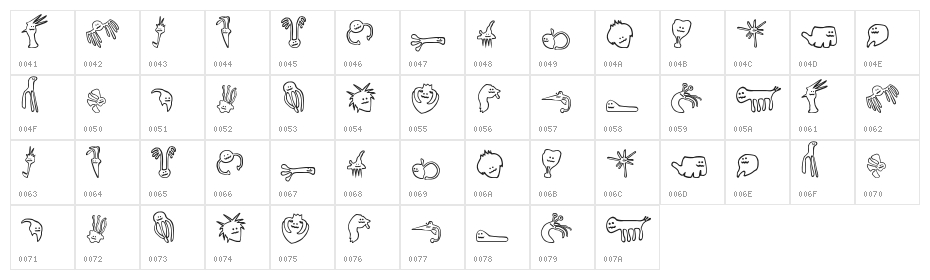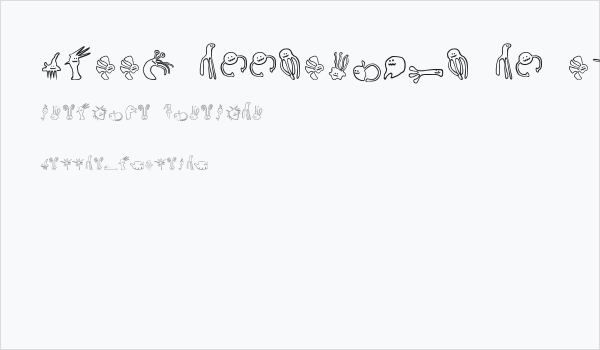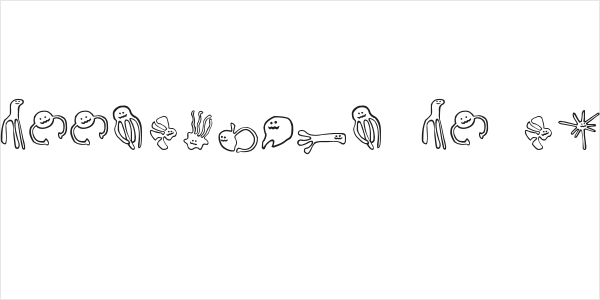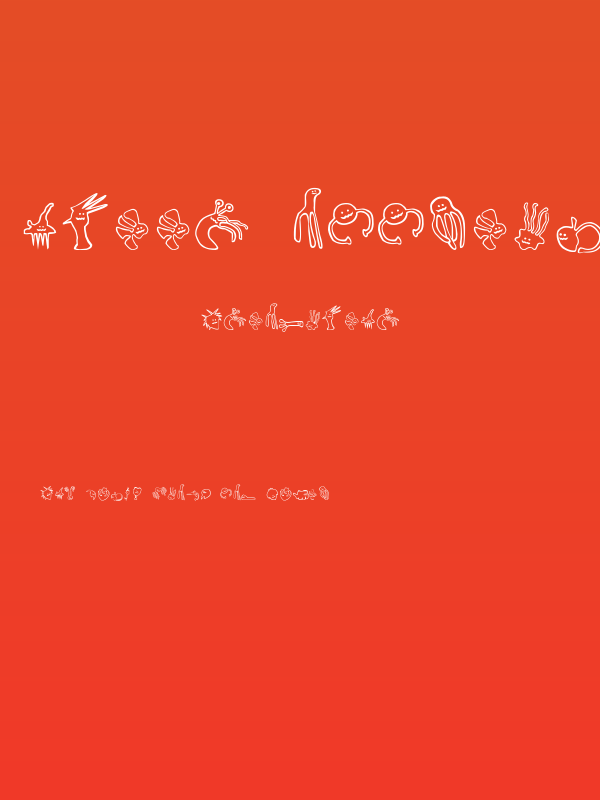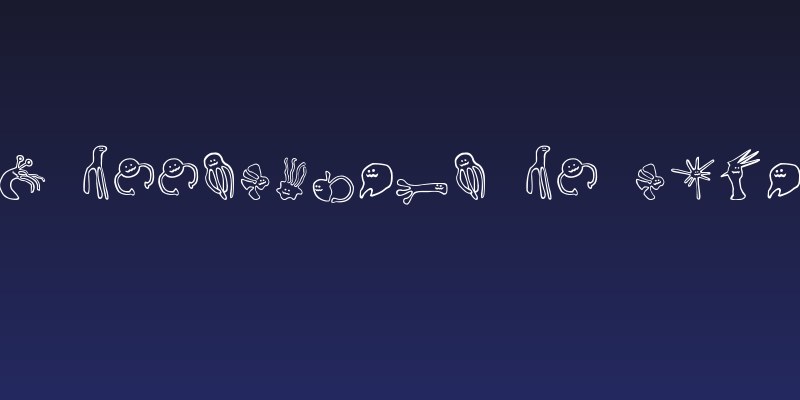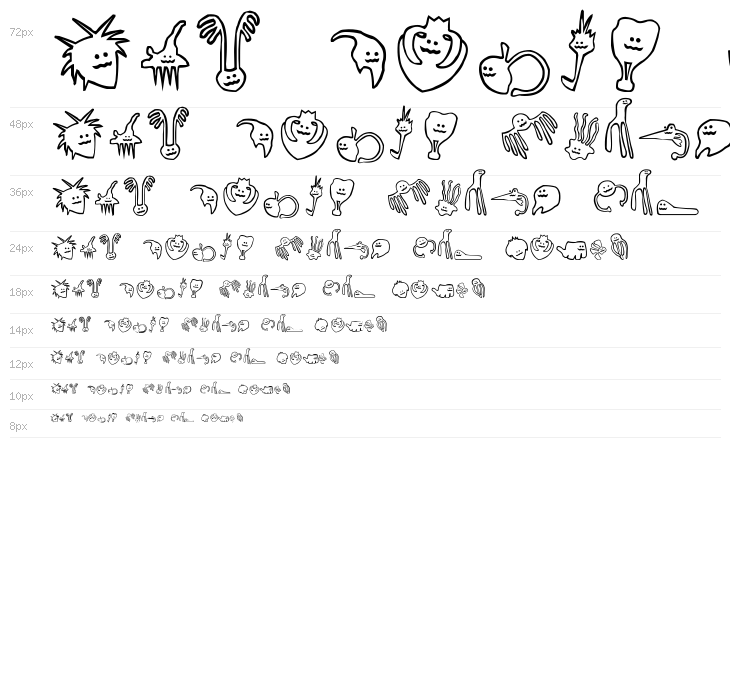
happy offsprings of plankton Font
happy offsprings of plankton Description
This whimsical and playful font features a series of unique, hand-drawn characters that resemble quirky, cartoonish creatures. Each character is distinct, with exaggerated features and a sense of movement, giving the font a lively and animated feel. The strokes are uneven and organic, contributing to its informal and artistic style. The font is highly decorative, with each letter and symbol appearing as a small piece of art, making it ideal for creative and unconventional projects. Its imaginative design is perfect for capturing attention and adding a touch of humor and creativity to any text.
| Proposed Projects | Ideal for children's books, playful branding, creative posters, and artistic projects. |